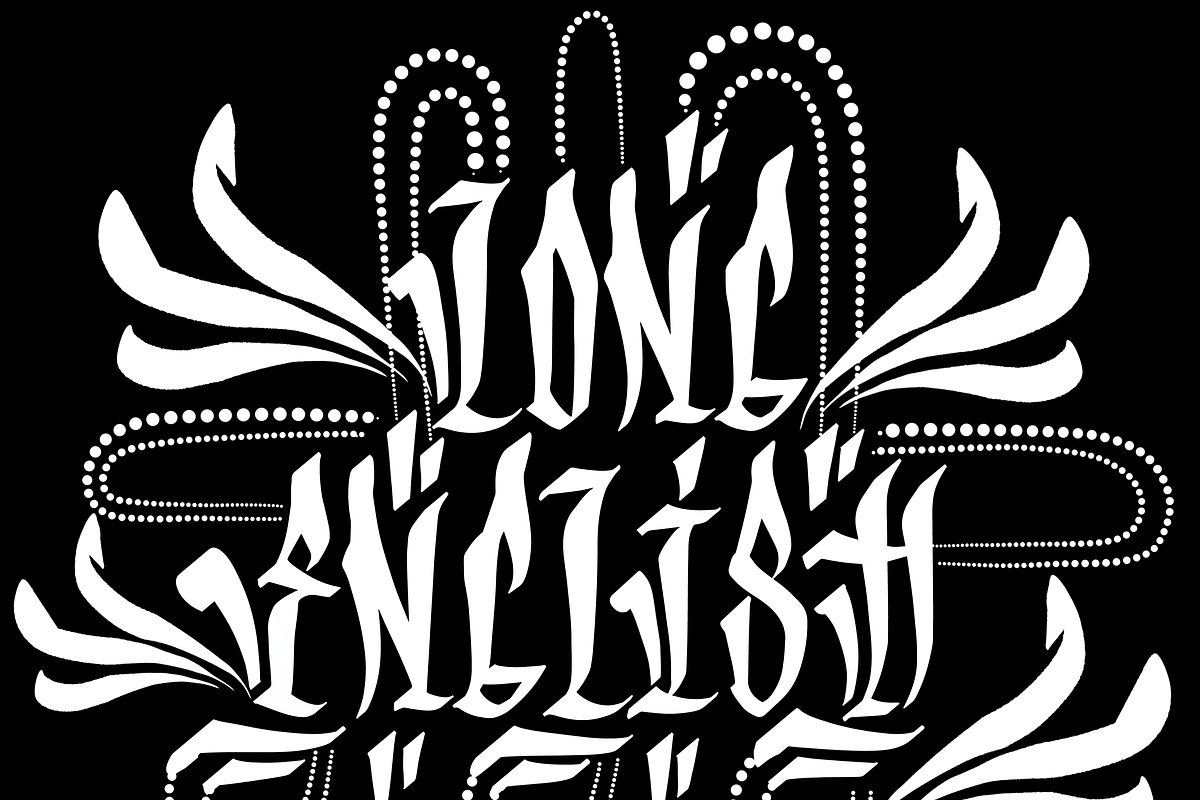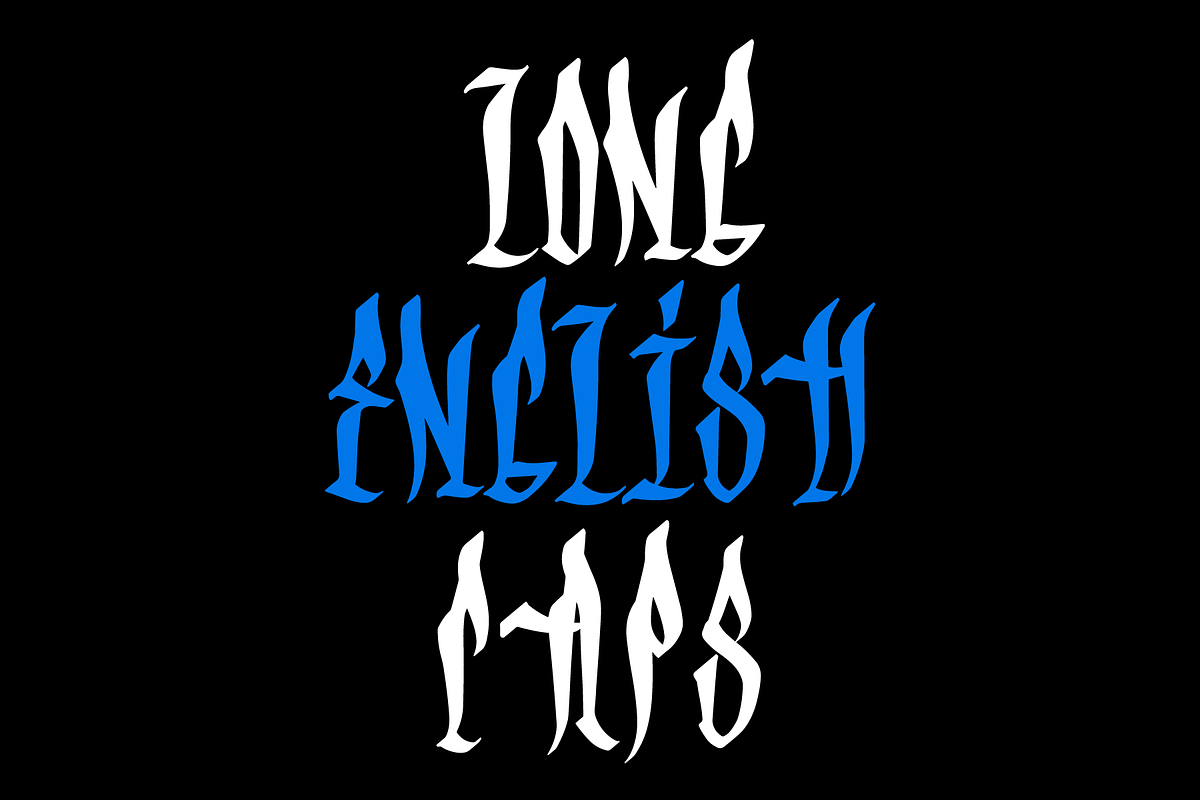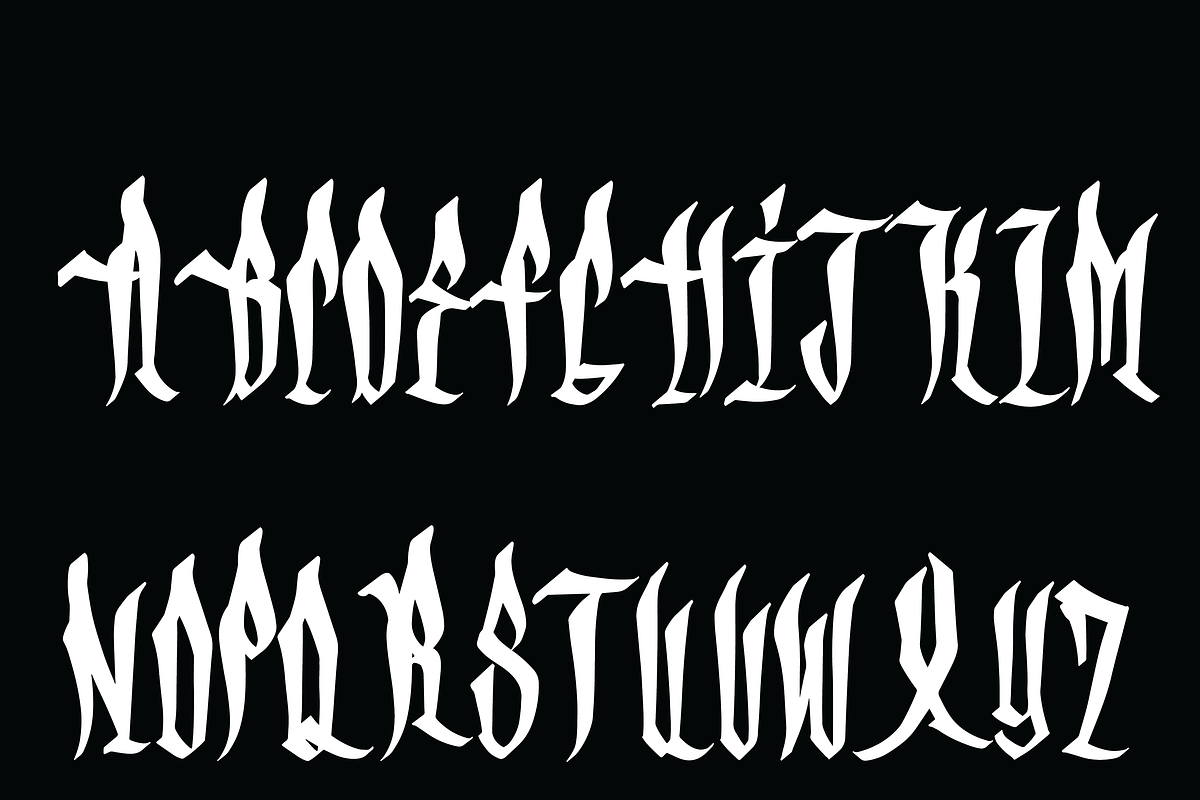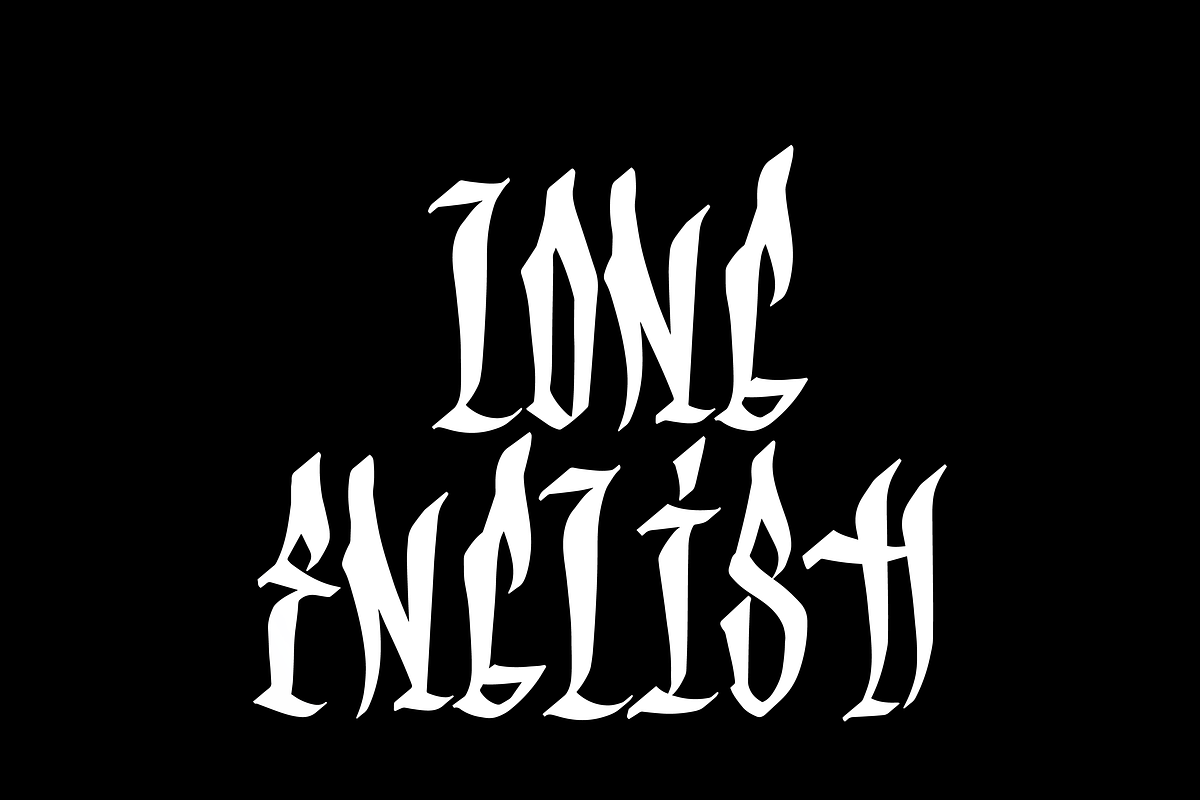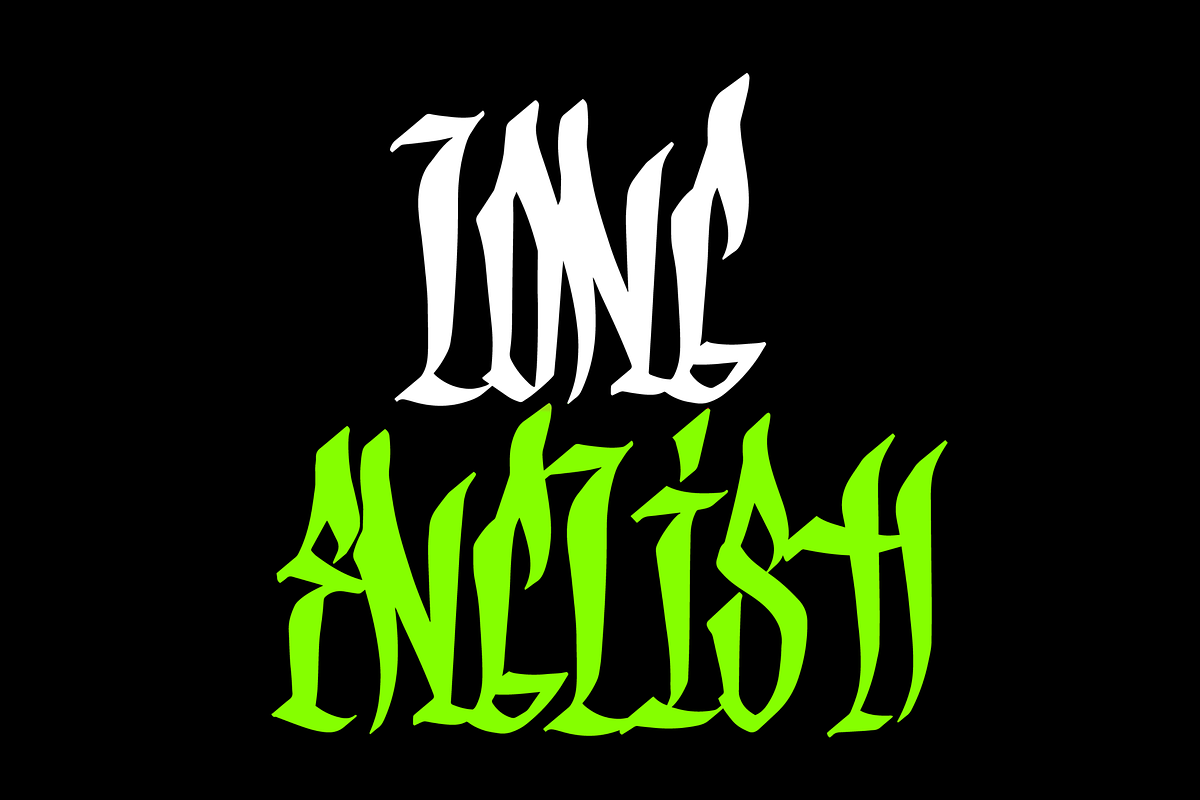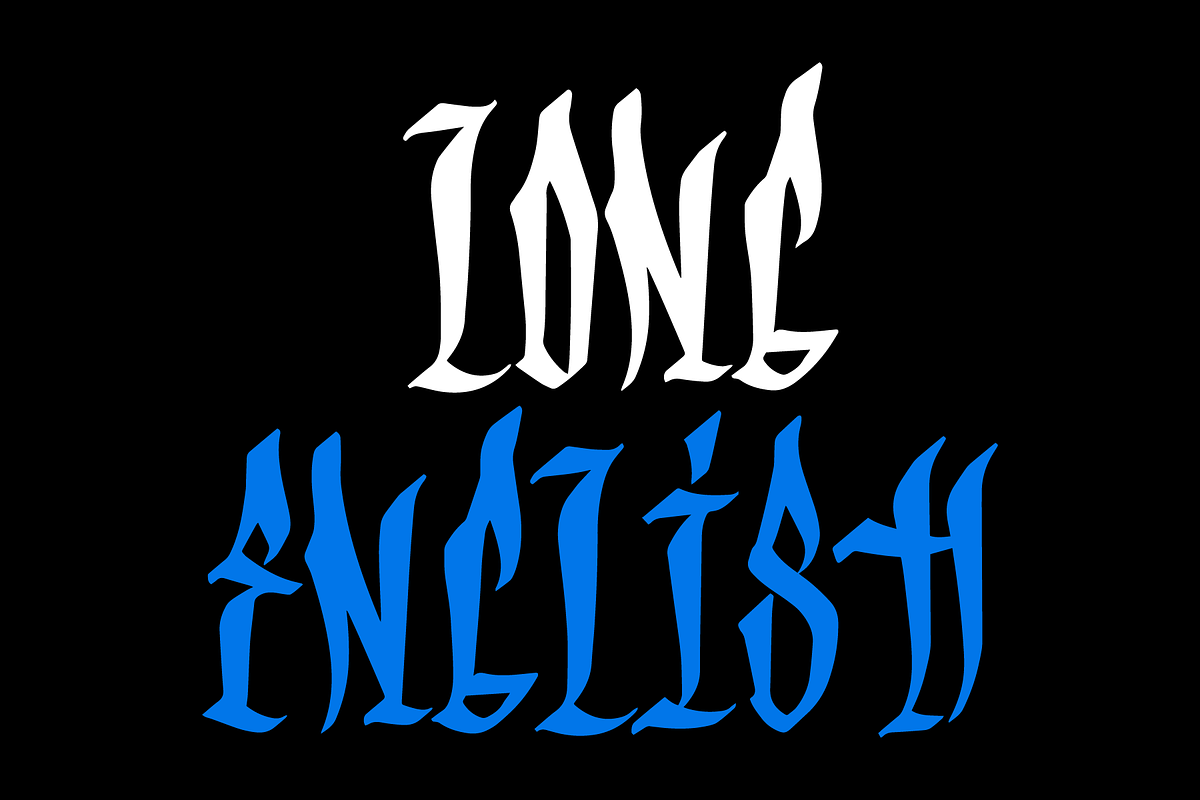
LONG ENGLISH CAPS
LONG ENGLISH CAPS is a 26 character all-caps .otf. It is an Older English styled- Long character Font. This Font was designed in Los Angeles, California.